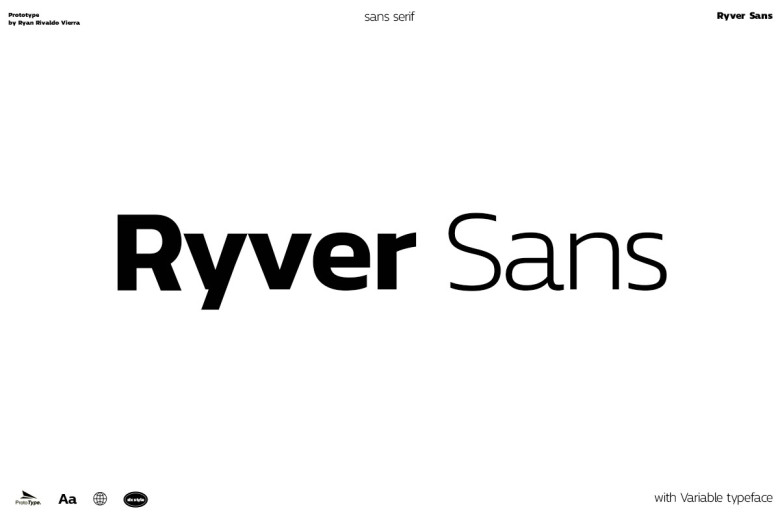
Ryver Sans Font
Ryver Sans is a modern and trendy sans serif font which exudes contemporary cool and casual style, perfect for branding projects such as logos, T-shirt printing projects and products with creative flare. Additionally, it can give products new looks.
Ryver Sans Font Family